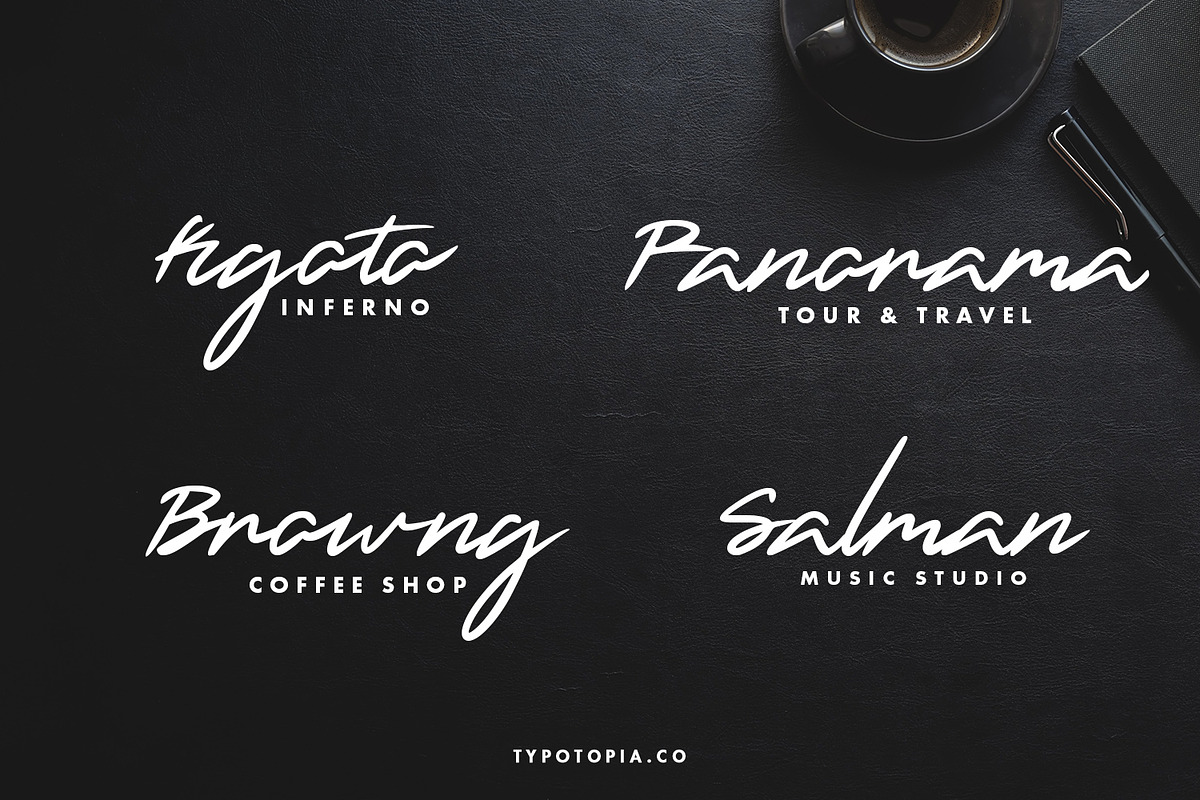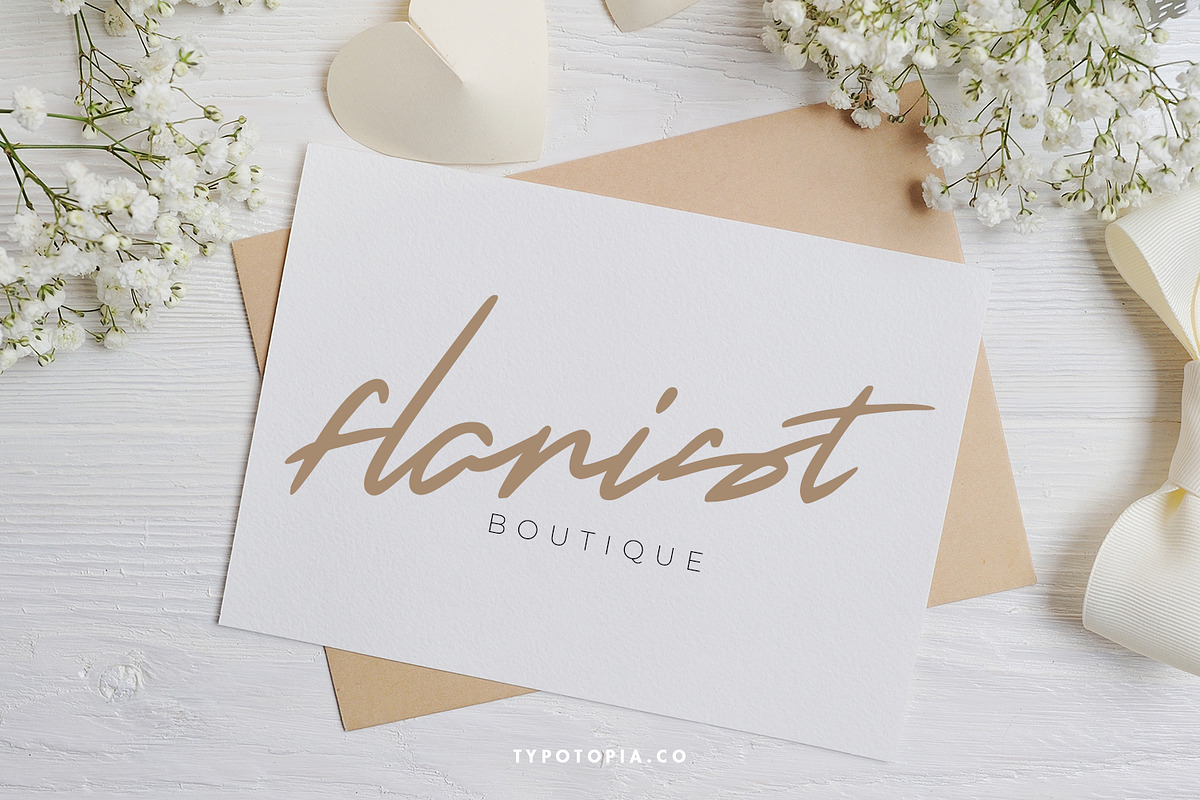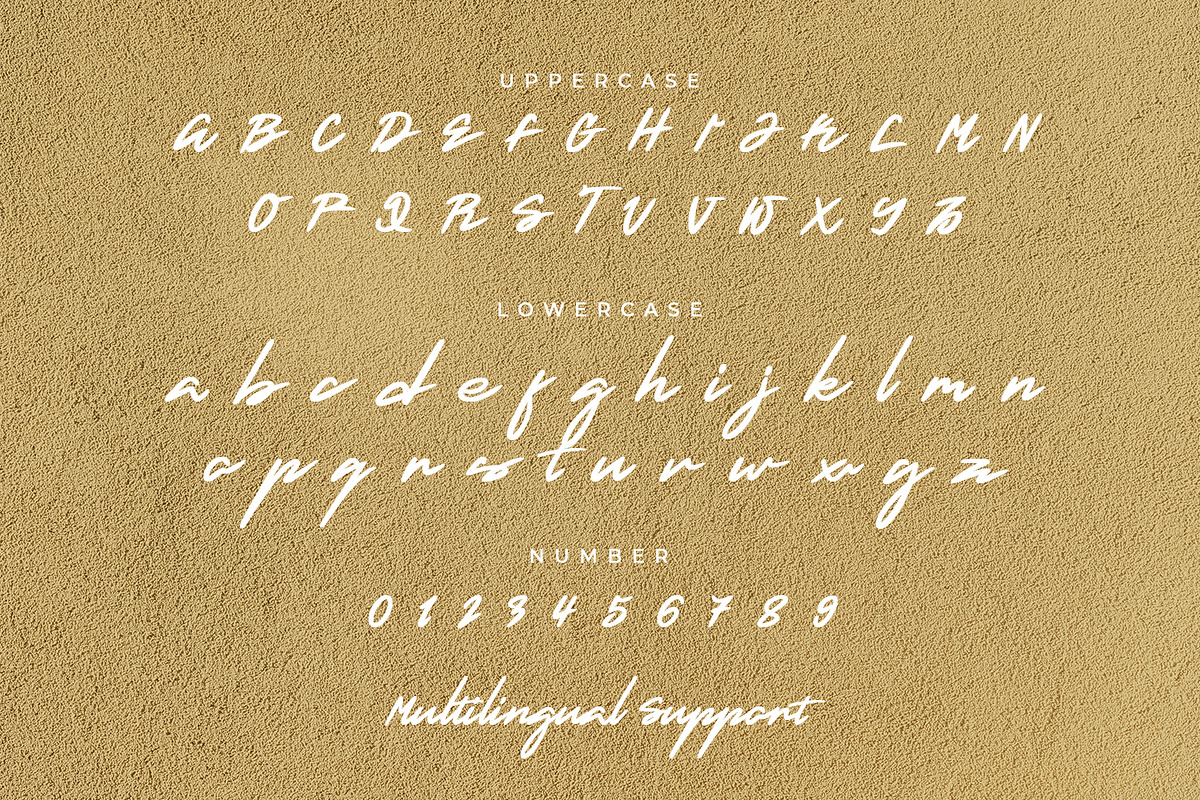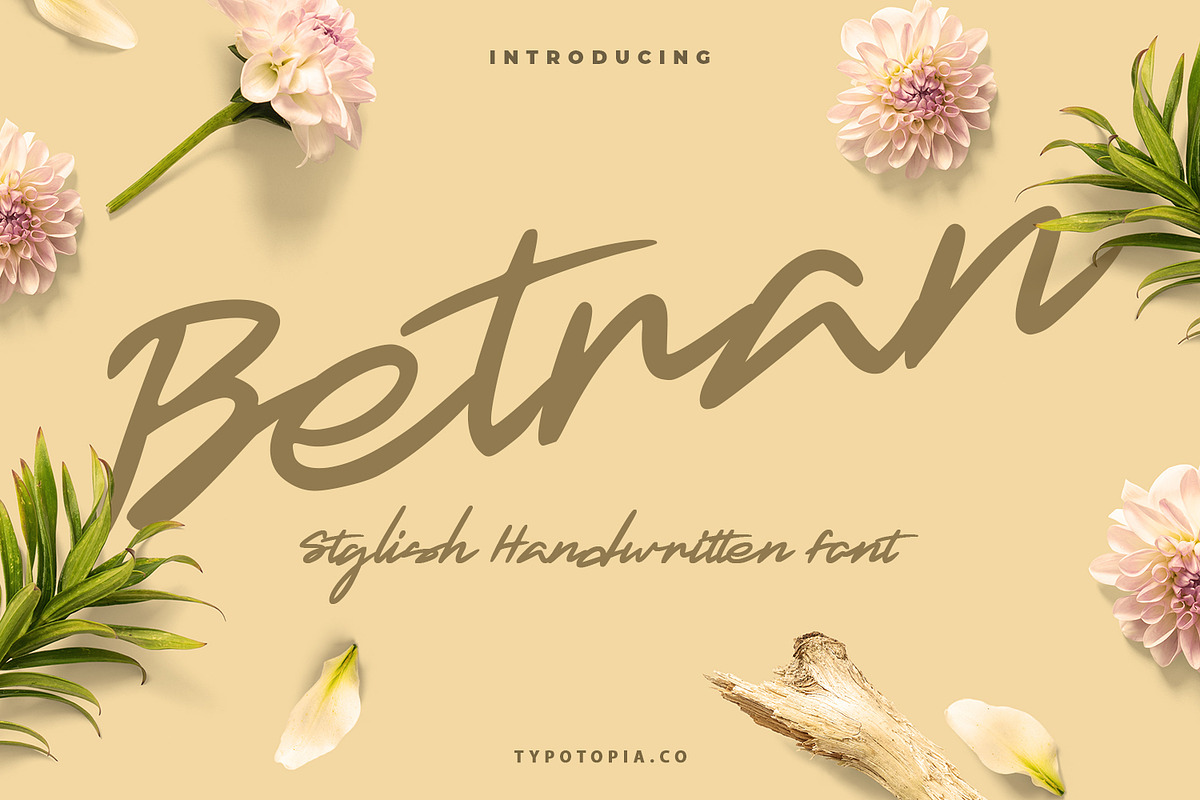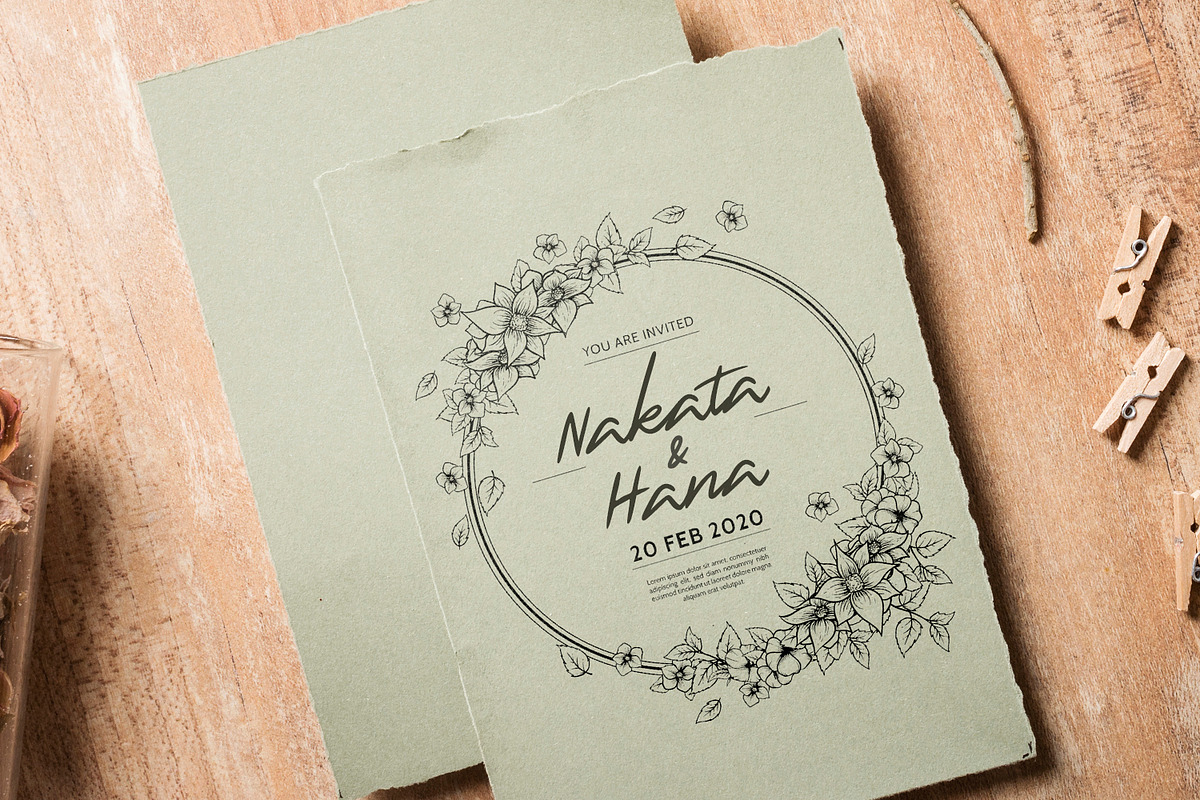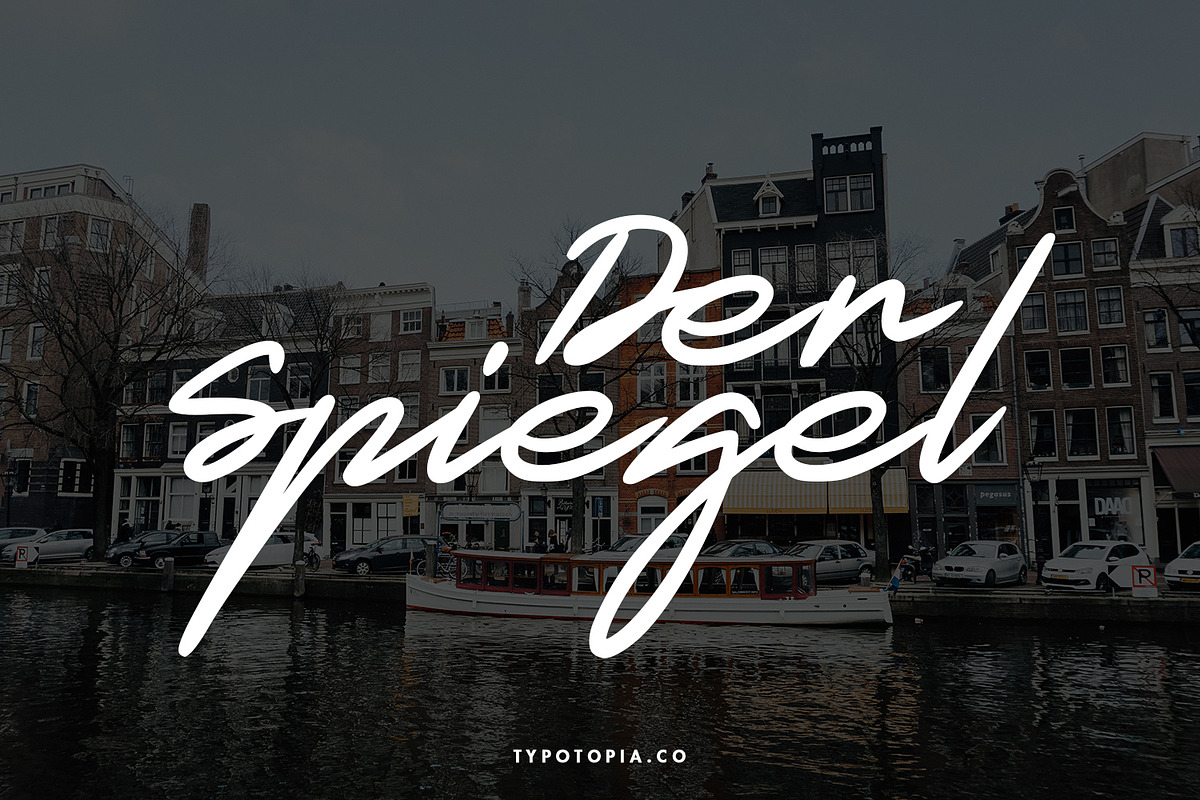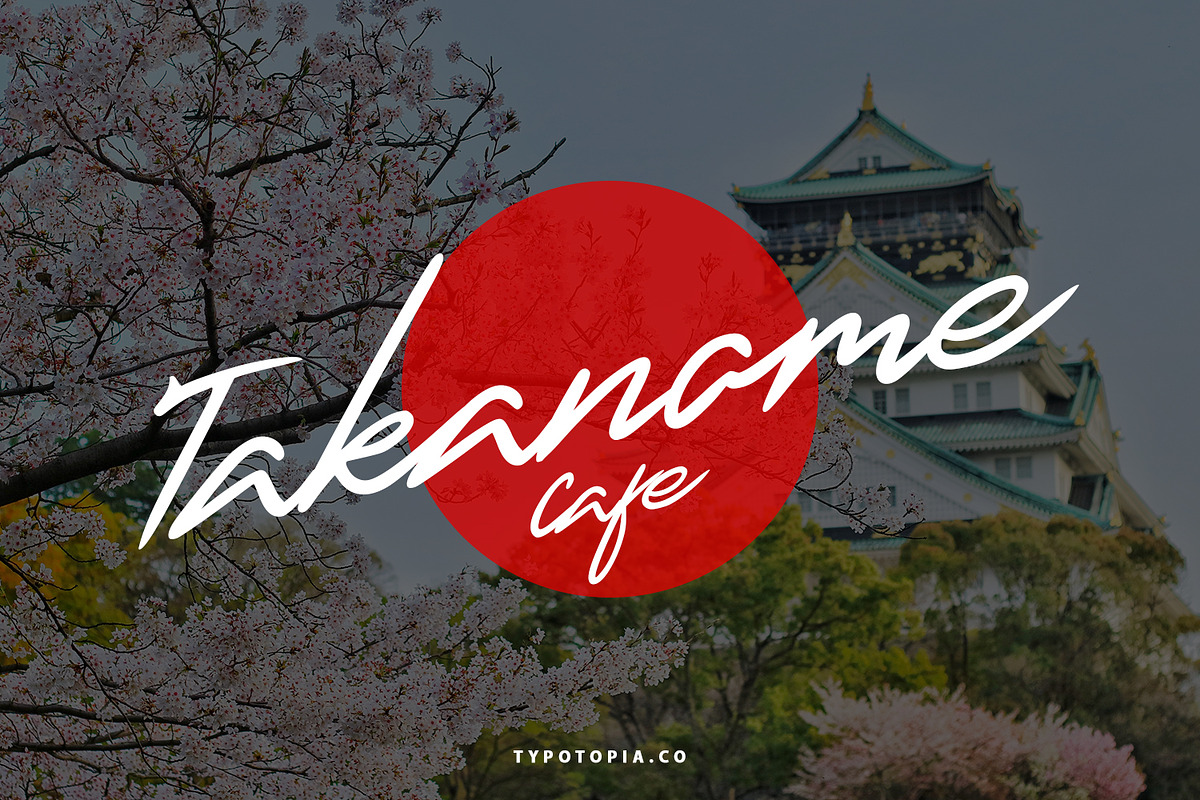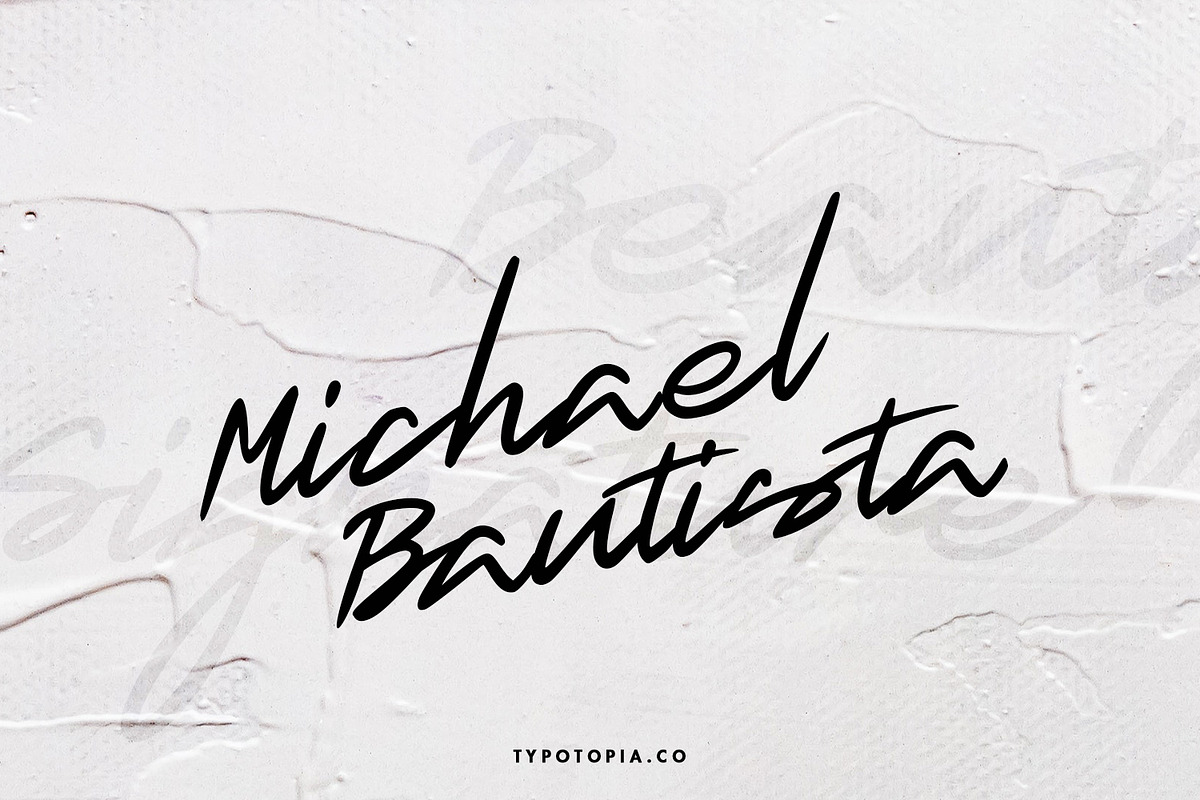
Betran Hand Drawing Font
Typotopia Proudly Present Betran The Hand Drawing Font. This Fonts Comes is a bold connected script font with a clear style and dramatic movement. Every single letters have been carefully crafted to make your designs looks better.
Betran Font is the great choice for several purpose, such as watermark, logo, business card design, quotes, album cover, invitation letter, stationery, and many other design project that need handwriting taste.
Betran also Support Multilingual Feature for Foreign Language, here’s the list : áäåãéèëìïîòöôøùüAÀÁÂÃÄÅEÈÉÊËIÌÍÎÏNÑOÒÓÔÕÖUÙÜÚÛYÝŸ?Ÿ
Uppercase & Lowercase letters